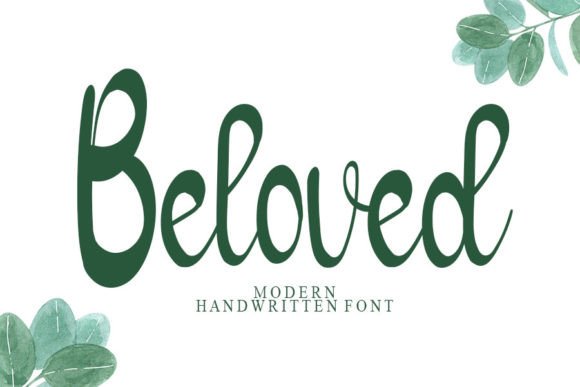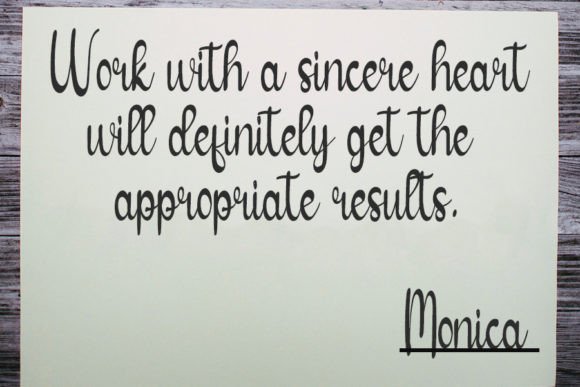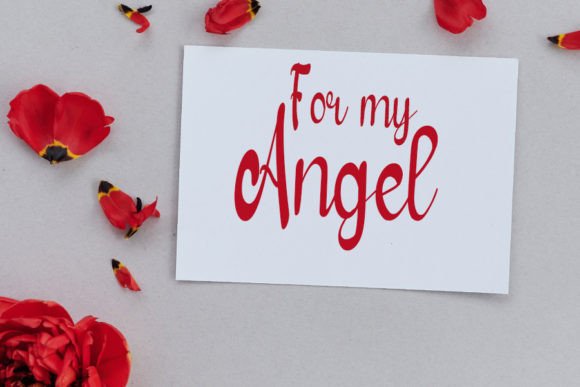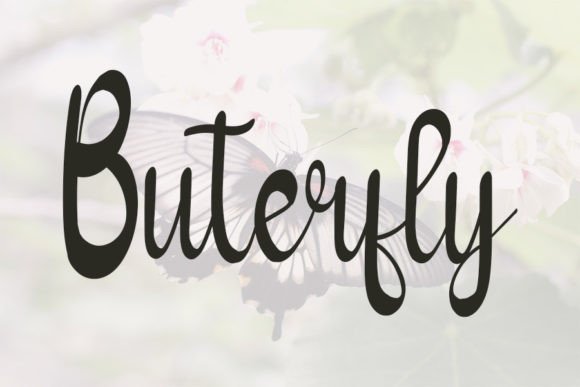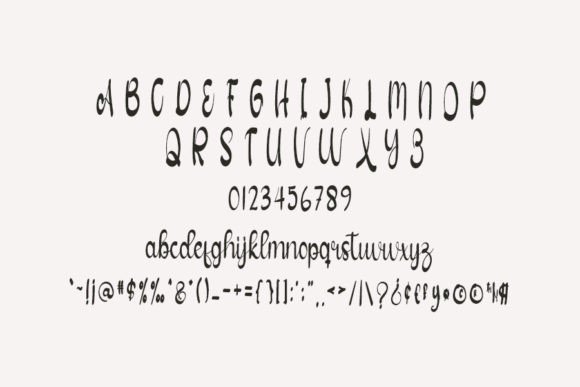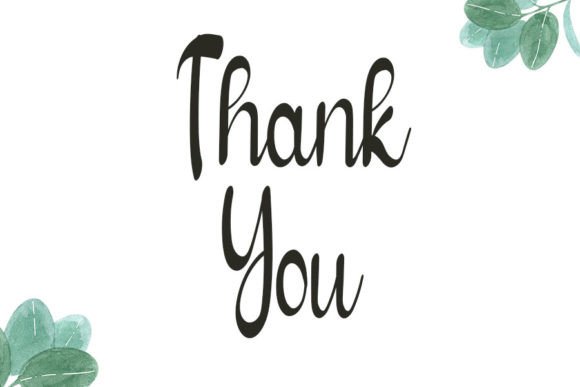
Beloved Font
Beloved, a welcoming handwritten font, has been meticulously crafted to earn its status as a beloved favorite. It gracefully retains its classy calligraphic roots while radiating a contemporary and fresh vibe, making it a versatile and cherished choice for a variety of design projects.
Beyond its role as a typeface, Beloved is an artistic companion that seamlessly blends timeless elegance with modern aesthetics. Every stroke of its letters is imbued with precision, resulting in a visually pleasing and approachable appearance. This font is poised to infuse a distinct charm into a myriad of applications, showcasing its adaptability and suitability for diverse creative endeavors.
In the realm of invitations, Beloved transforms the mundane into the extraordinary. Be it wedding invitations, festive announcements, or any celebratory event, this font adds a layer of charm and warmth. The handwritten allure of Beloved establishes a genuine connection with the reader, transforming each invitation into a personal and memorable experience.
In the digital realm, Beloved becomes a valuable asset for social media graphics and branding. Posts adorned with this font emanate friendliness, and logos gain a unique touch that sets them apart. Serving as a visual storyteller, Beloved expresses the essence of brands with a harmonious blend of traditional and contemporary flair.
The world of product packaging undergoes a transformation with Beloved. From cosmetics to gourmet delights, the font elevates packaging to an art form. Its ability to strike a balance between classic and modern sensibilities ensures broad appeal, enhancing the overall visual identity of the product.
Within the realm of design, Beloved proves to be an indispensable tool. Advertisements acquire a touch of elegance, catching the eye and leaving a lasting impression. Product designs, labels, and creative projects benefit from the font’s handwritten taste, turning them into captivating visual experiences.
Beloved seamlessly integrates into the tangible world, extending beyond the digital and design spheres. Photography gains a personalized touch with watermarks that transcend mere identification, becoming a signature of creativity. Stationery becomes an extension of personal style, with each handwritten note carrying the warmth and sophistication inherent in Beloved.
In conclusion, Beloved stands as more than just a font; it’s an artistic ally that adds a touch of warmth and sophistication to invitations, social media graphics, advertisements, product packaging, designs, labels, photography, watermarks, and stationery. Its meticulous fusion of classic and contemporary elements ensures its enduring relevance and adoration across a spectrum of creative pursuits.